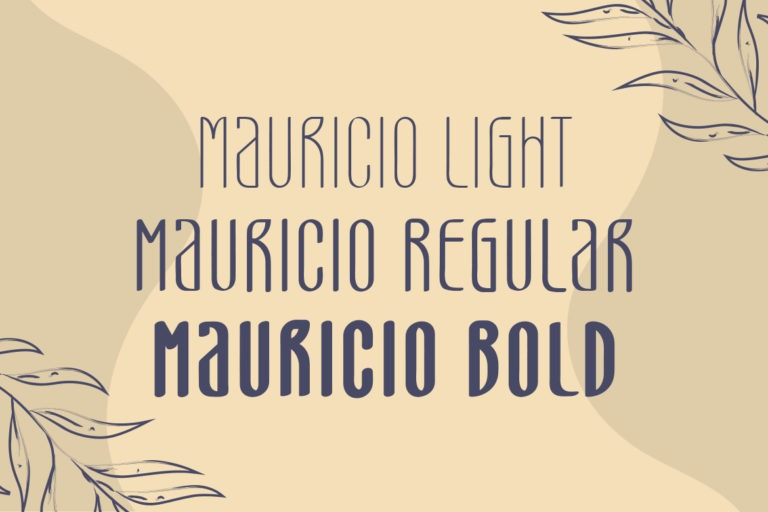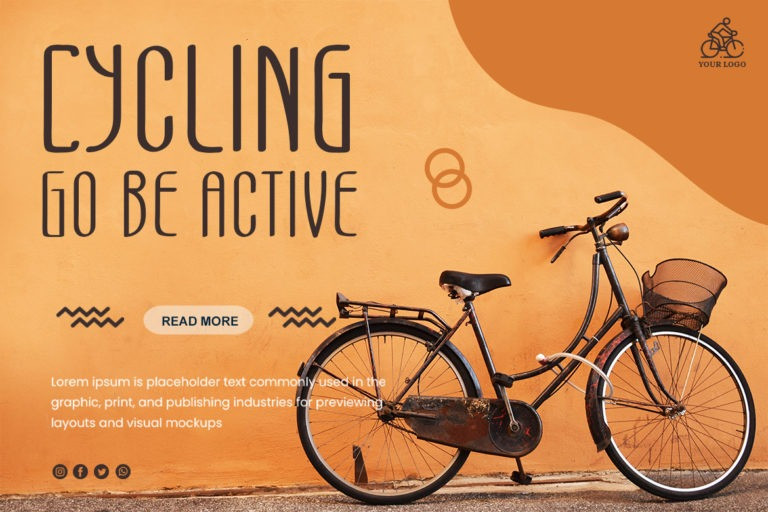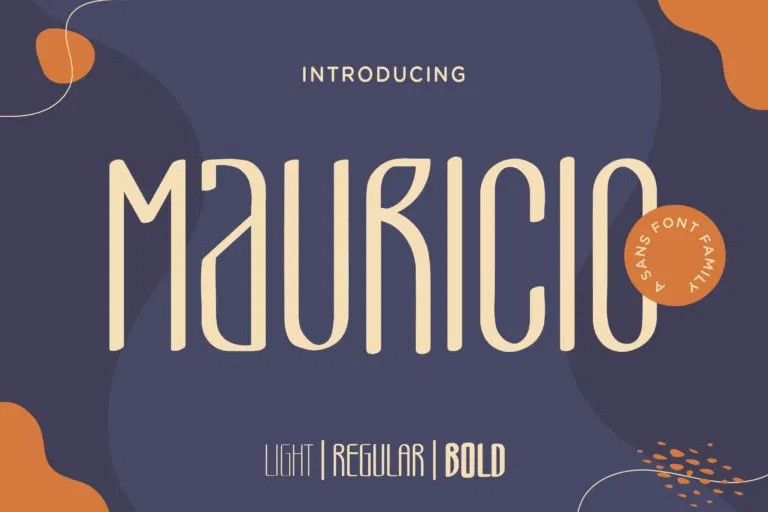
Mauricio Display Font
Mauricio is a simple sans family. It has tall feels yet unique. All included styles can be combined perfectly, giving you the opportunity to create multiple unique designs with just this one download.